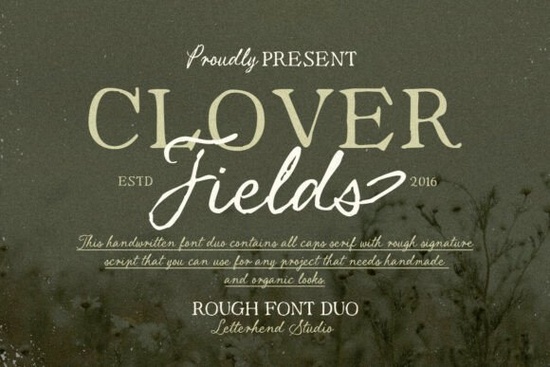
If you're looking for a font that brings warmth and authenticity to your designs without feeling overly polished, Clover Fields Font might be exactly what you need. It pairs a gentle organic serif with a slightly uneven handwritten script think of the kind of lettering you’d find in a well-loved journal tucked away on a farmhouse shelf. The subtle texture and natural imperfections give it a relaxed, handmade quality that works beautifully for invitations, packaging, branding, or even printable wall art.
This duo is especially appealing if you value softness over sharpness and character over perfection. Whether you’re designing wedding stationery, labeling homemade goods, or creating cozy social media graphics, Clover Fields adds a touch of earthy charm that feels both personal and timeless.
What makes Clover Fields stand out from other rustic fonts?
Many script-and-serif pairings aim for contrast, but Clover Fields leans into harmony. Both styles share the same hand-drawn sensibility the serif isn’t rigid or formal, and the script isn’t overly flourished. Instead, they complement each other like two pages from the same notebook. The strokes carry slight variations in weight and edge texture, mimicking real ink on paper rather than digital precision.
For crafters and small business owners, this means your designs can feel artisanal without requiring extra effort. You don’t need to layer textures or add distress effects manually; the personality is built right into the letterforms.
How can I use Clover Fields in my projects?
Because it includes two complementary typefaces, Clover Fields gives you flexibility:
- Branding: Use the serif for logos or product names and the script for taglines or short phrases.
- Print-on-demand: Create mugs, totes, or greeting cards with quotes that feel intimate and sincere.
- Wedding or event design: Combine both fonts for cohesive suites from save-the-dates to place cards.
- Handmade labels: Perfect for soap makers, bakers, or candle crafters who want packaging that looks lovingly made, not mass-produced.
Is Clover Fields easy to work with for beginners?
You don’t need advanced typography skills to get good results. Simply pairing the serif for headings and the script for accents often creates a balanced layout. And because the textures are subtle not heavy or grungy they scale well for both digital screens and printed materials.
When should I choose Clover Fields over other rustic fonts?
Opt for Clover Fields when you want:
- A calm, not chaotic, rustic aesthetic
- Two coordinated fonts in one bundle
- Natural texture without overwhelming grit
- A handwritten feel that’s still highly legible
It’s less dramatic than some brush scripts and less stiff than traditional serifs, making it ideal for projects that aim to feel approachable and sincere like a note left on the kitchen counter with “Don’t forget your tea ☕” scribbled in pencil.